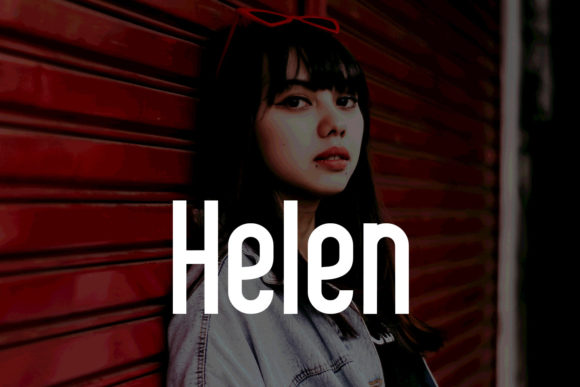
Welcome to the world of Helen Font, the digital brushstrokes that will ignite your creativity and leave an indelible mark on your designs. Enter the realm of this display font and witness how its sleek, robotic strokes transform your words into captivating expressions. Helen Font is not just a font; it's an artistic conduit, designed to elevate your designs with a touch of futuristic elegance.
Helen Font is your perfect companion for crafting web designs that stand out from the crowd. Its crisp lines and geometric precision will make your website radiate with a modern, cutting-edge aesthetic. Create business cards that command attention, leaving a lasting impression on potential clients and partners. Unleash your imagination and explore the endless possibilities that Helen Font offers.
With Helen Font, you'll find yourself immersed in a world of creative freedom, where your ideas take shape with a touch of digital magic. It's the perfect font for expressing your unique style, whether you're a seasoned designer or just starting your creative journey. Let Helen Font be your muse, guiding you towards designs that captivate and inspire.